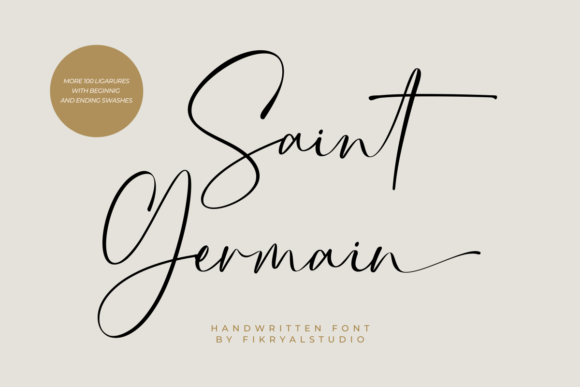
Indulge in the elegance of Saint Germain, a captivating script font that will enchant your designs with its timeless allure. Crafted with meticulous care, this font exudes a modern flair that seamlessly blends with its casual charm, making it the perfect choice for a myriad of creative endeavors.
Picture your creations adorned with the grace and sophistication of Saint Germain. Its meticulously crafted glyphs and effortless swashes invite you to explore a world of endless possibilities. Whether you're crafting captivating magazine text, designing enchanting logos, or adding a touch of whimsical charm to your social media posts, Saint Germain is your trusted companion.
Dive into the depths of expression with Saint Germain, where your imagination takes center stage. Its versatility knows no bounds, allowing you to effortlessly elevate your designs to new heights. Embrace the power of Saint Germain and witness the transformation of your creations into works of art that captivate and inspire.
With its PUA encoding, unlocking the full potential of Saint Germain is a breeze. Access every character and swash with effortless ease, empowering you to unleash your creativity without limitations. Let Saint Germain be your muse, the key to unlocking a world of design possibilities where imagination reigns supreme.